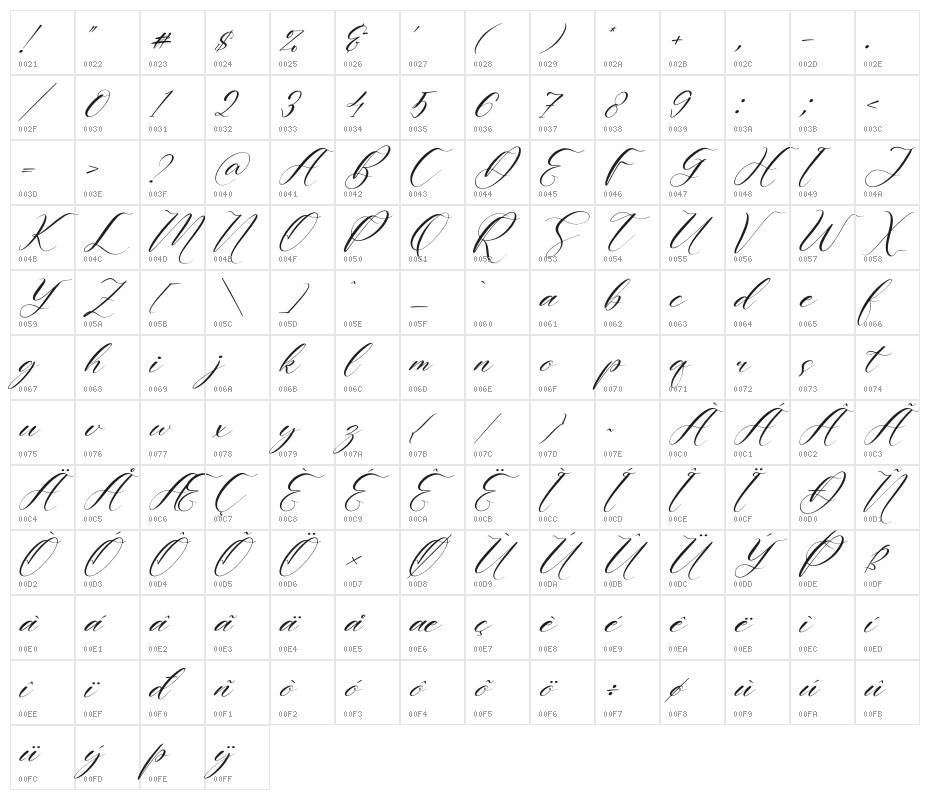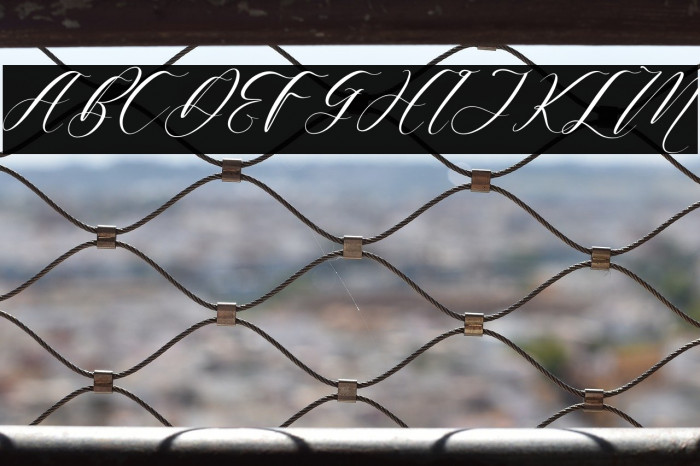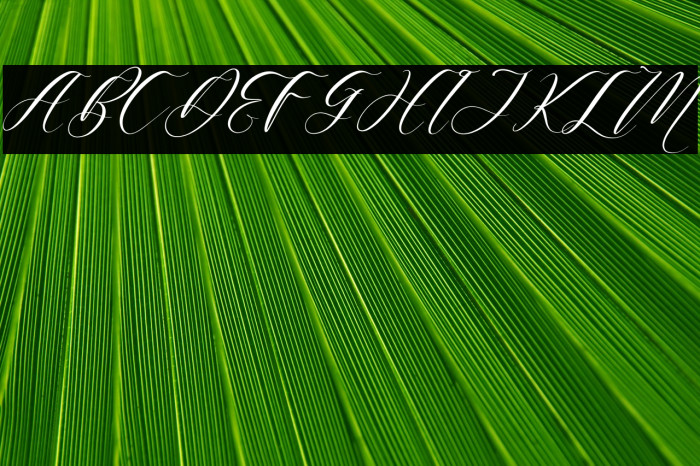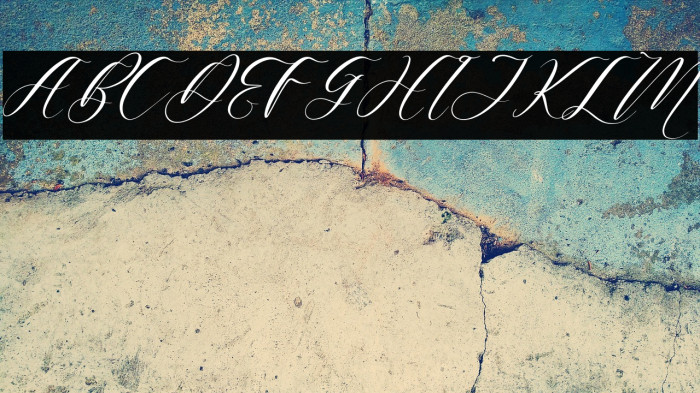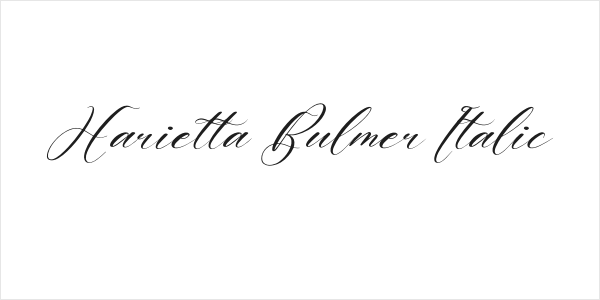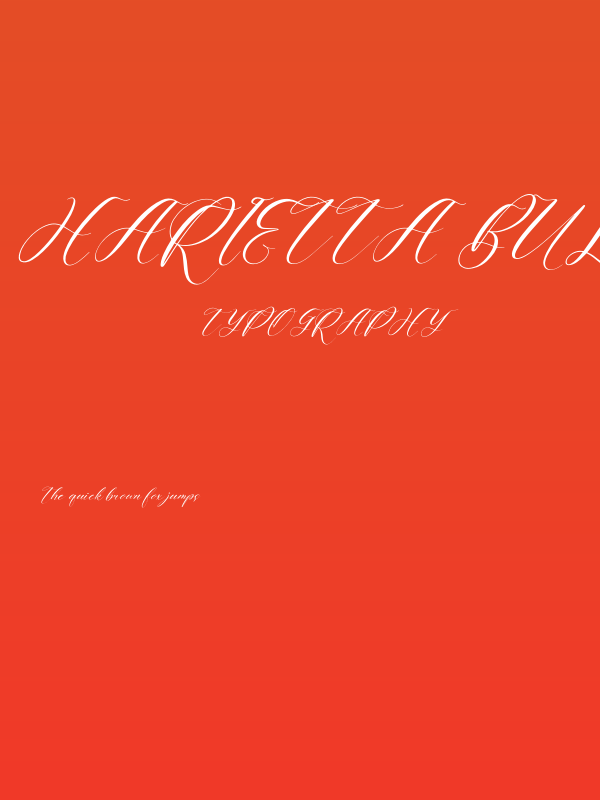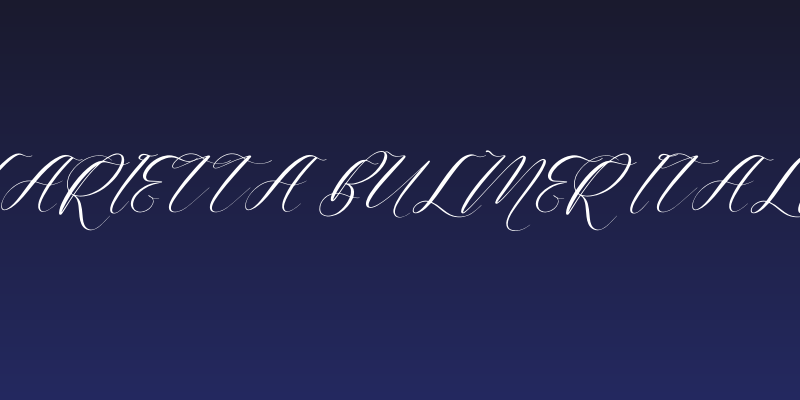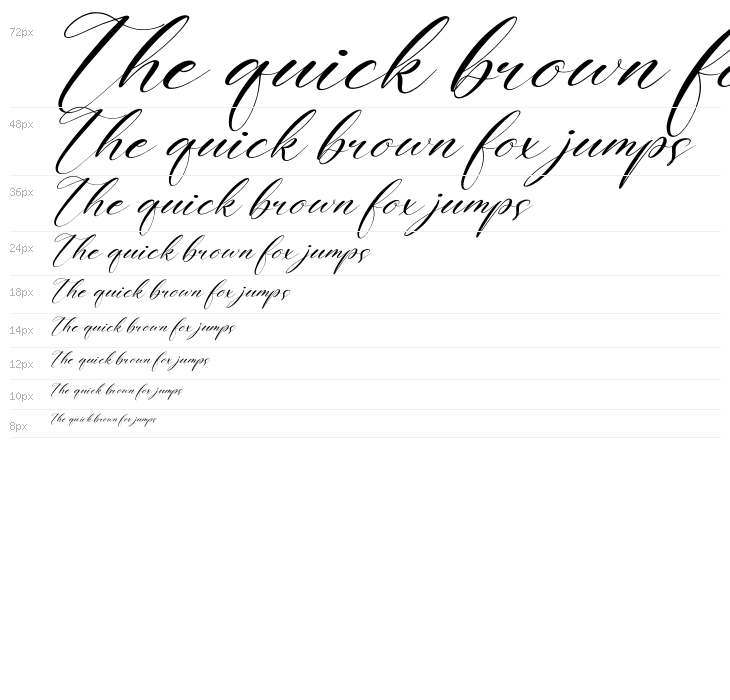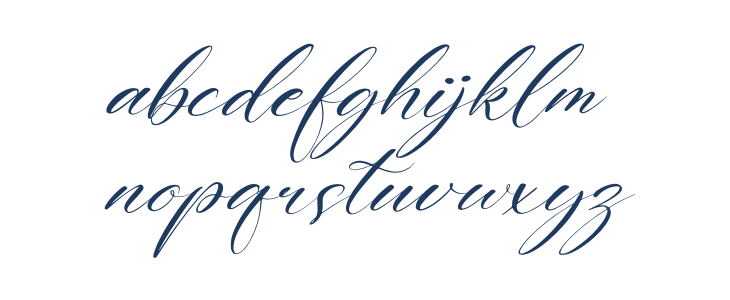
Harietta Bulmer Italic Font
Harietta Bulmer Italic Description
This elegant script font features flowing, cursive letterforms with a sophisticated and refined appearance. The characters are gracefully connected, creating a seamless and fluid look. The uppercase letters are tall and slender, while the lowercase letters maintain a consistent slant, enhancing the italic style. The font exhibits a high contrast between thick and thin strokes, adding to its dynamic and stylish feel. The numerals and special characters are designed with the same attention to detail, ensuring a cohesive overall appearance. This font exudes a sense of luxury and formality, making it ideal for upscale design projects.
| Proposed Projects | Wedding invitations, luxury branding, elegant stationery, formal event programs. |